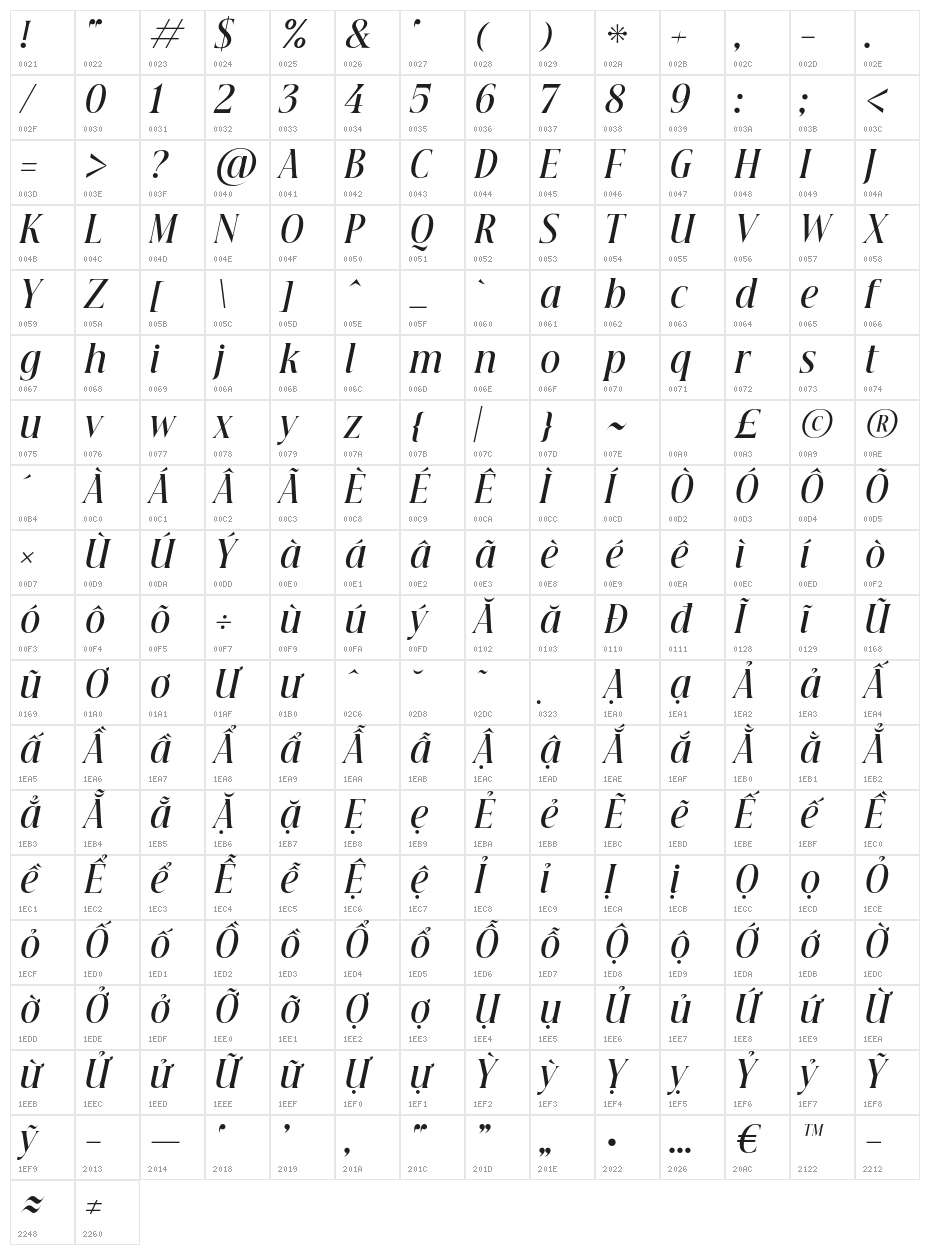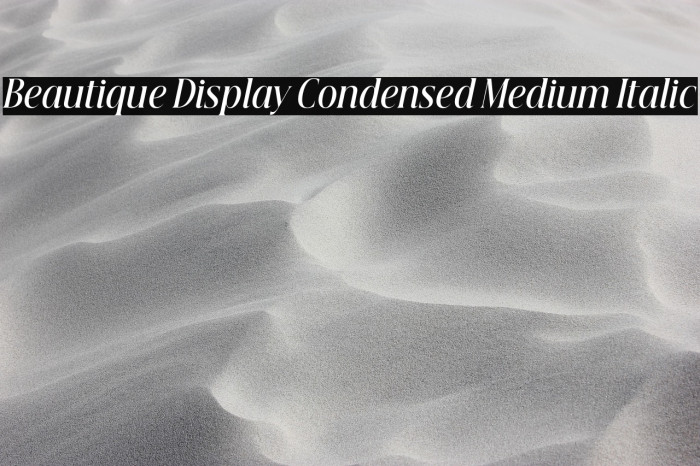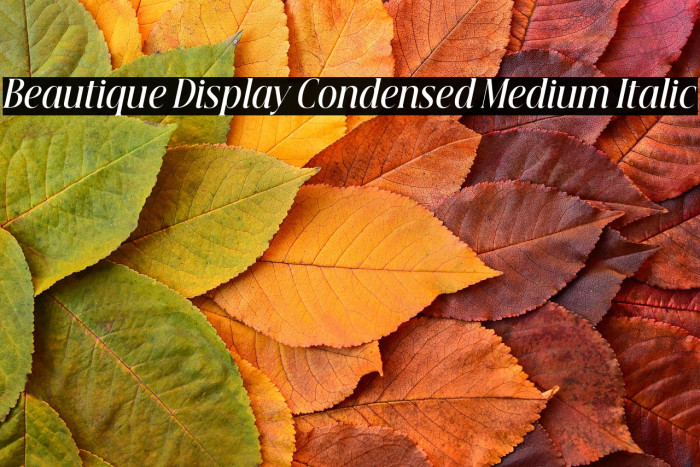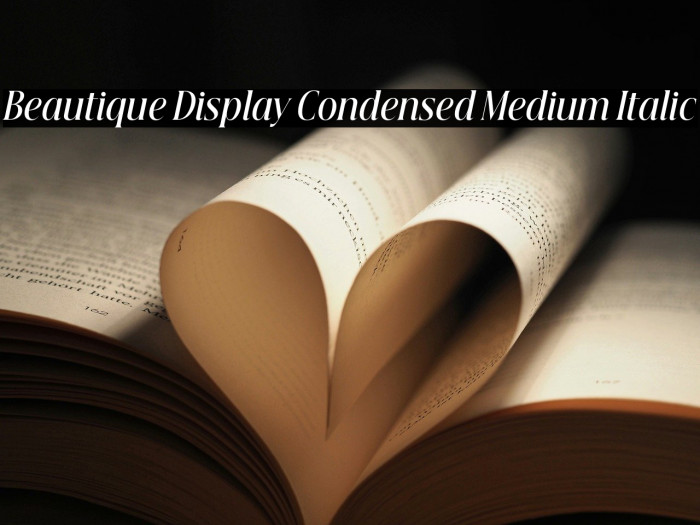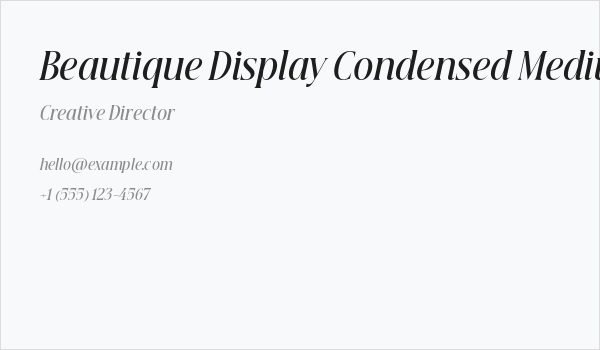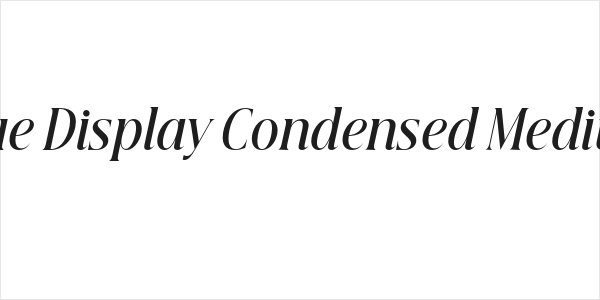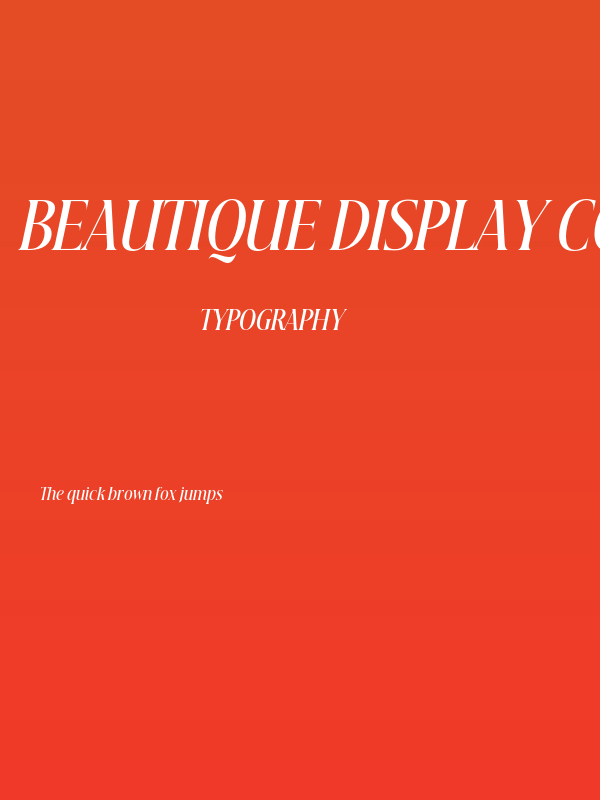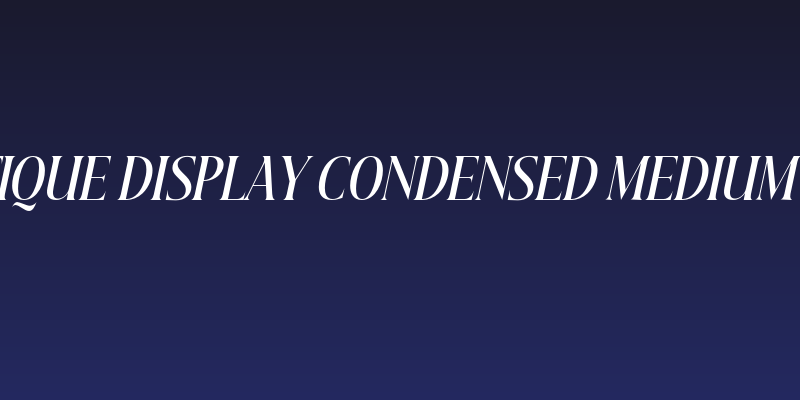
Beautique Display Condensed Medium Italic Font
Beautique Display Condensed Medium Italic Description
This font exhibits a refined and elegant style, characterized by its condensed and italicized form. The letters are gracefully slanted, adding a sense of motion and sophistication. The strokes are moderately thick, providing a medium contrast that enhances readability while maintaining a stylish appearance. The serifs are subtle yet distinct, contributing to a classic and timeless look. The overall design is sleek and modern, making it suitable for a variety of applications where elegance and clarity are desired.
| Overall Style | Elegant and Modern |
| Use Case | Headlines, Branding, Invitations |
| Proposed Projects | Ideal for fashion magazines, luxury branding, elegant invitations, and high-end product packaging. |